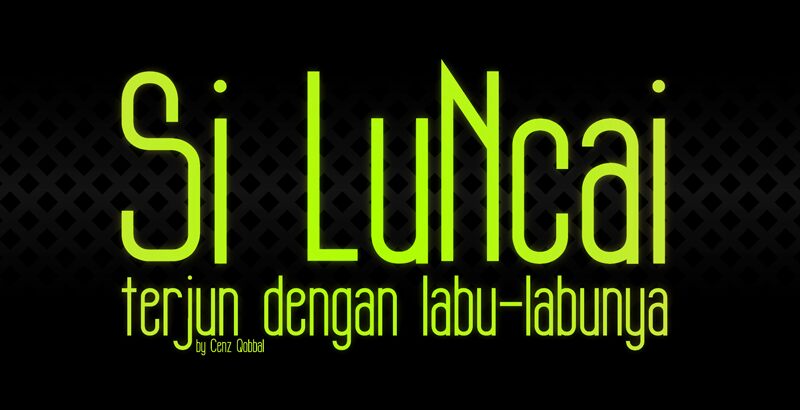
Si LuNcai by Cenz Qobbal is a free comic display font with an unusually tall, narrow silhouette. Its slim strokes bend into soft curves, and the tight proportions give the lettering a slightly awkward, elastic look. The forms feel lightly drawn.
Humorous characters and offbeat urban scenes make a fitting context for posters, comic covers, and event graphics. In merchandise, the stretched letters can become part of a lanky figure or architectural illustration instead of serving as neutral text.